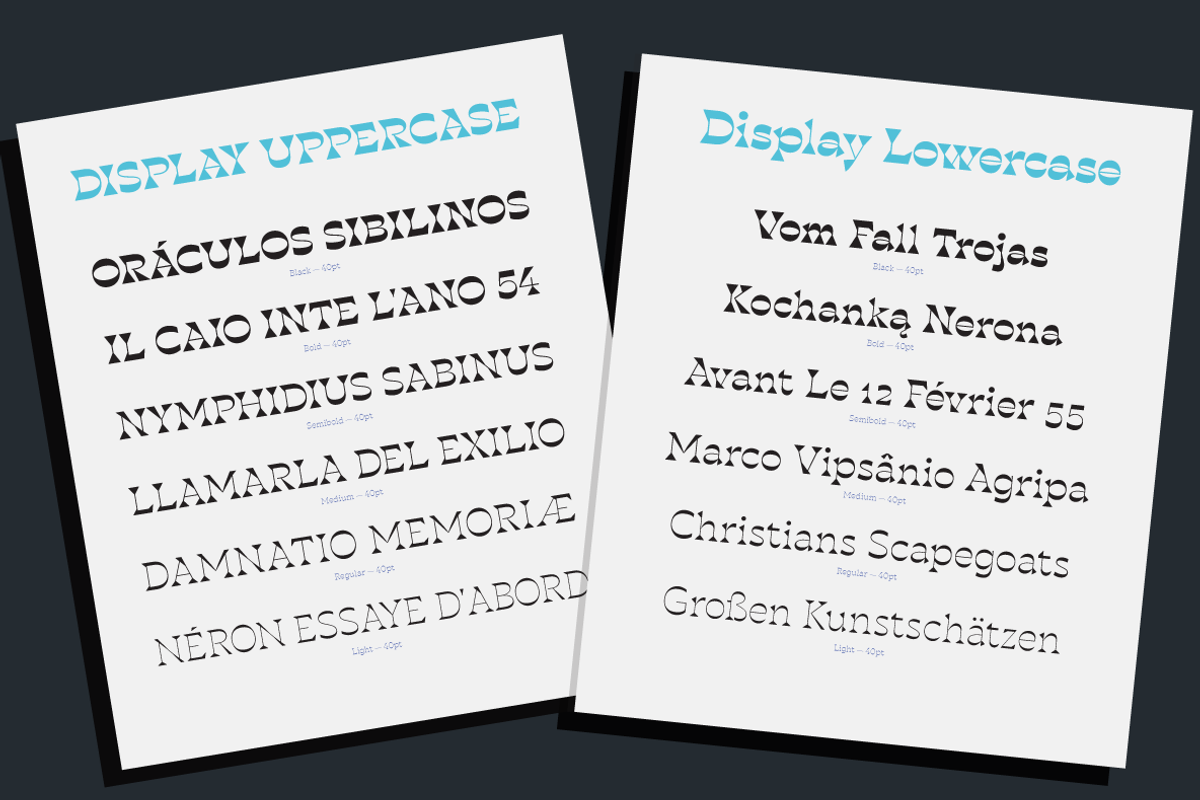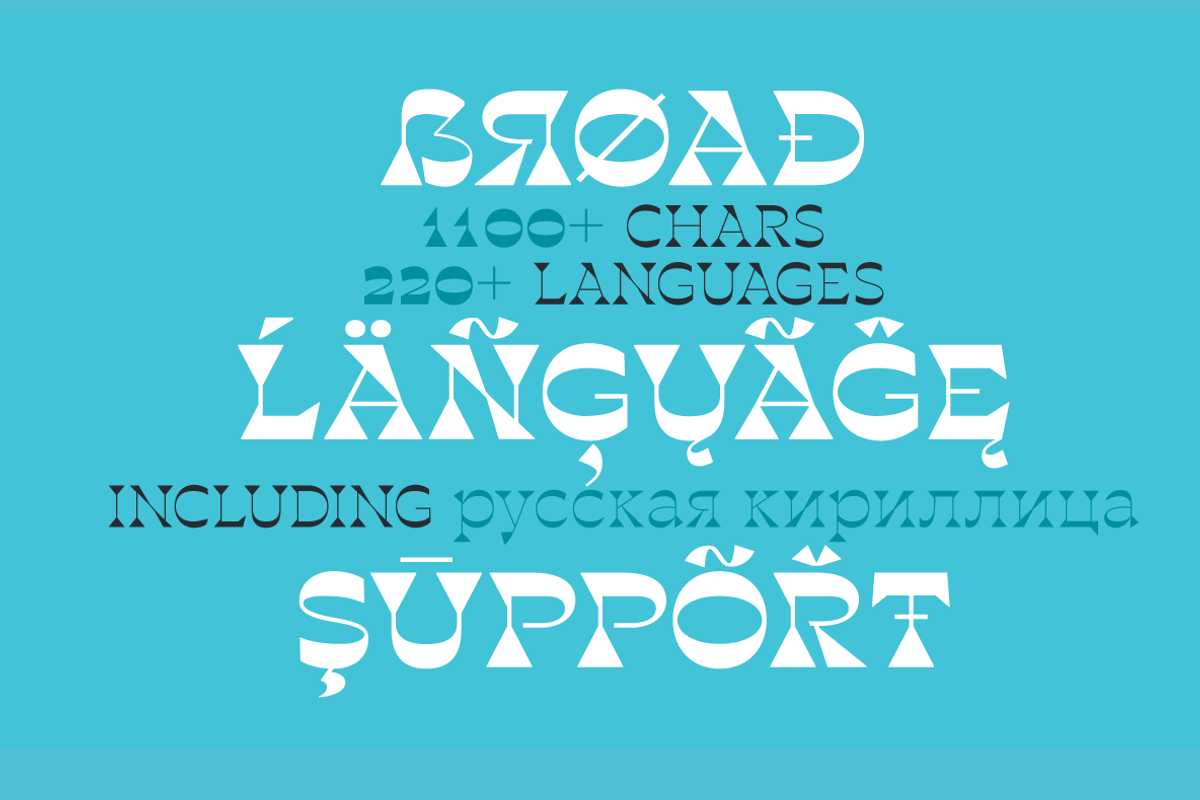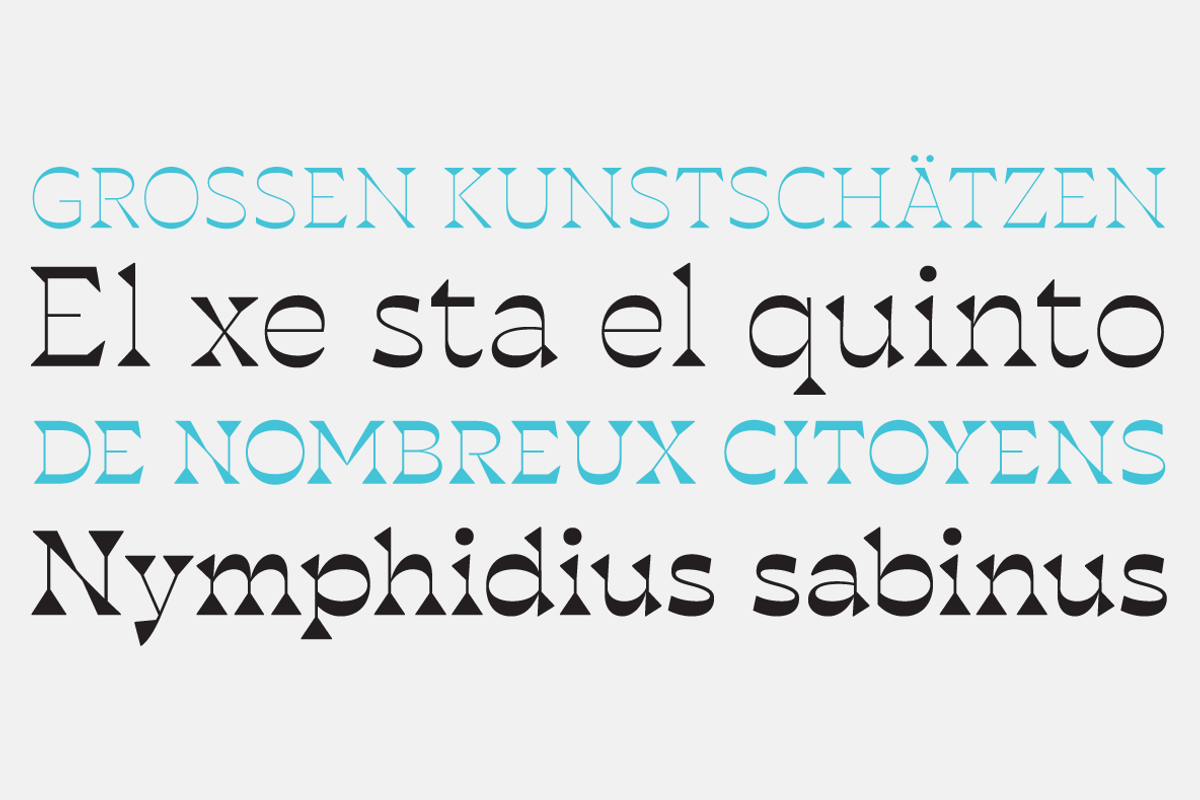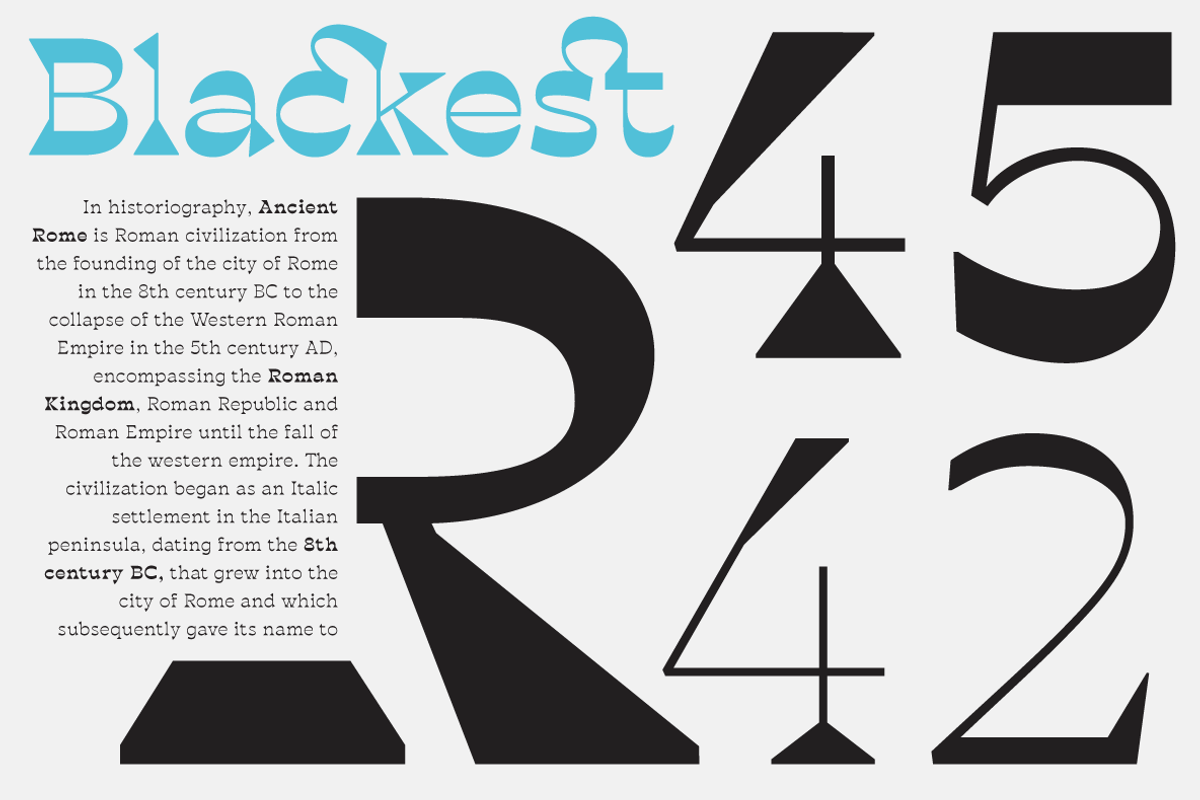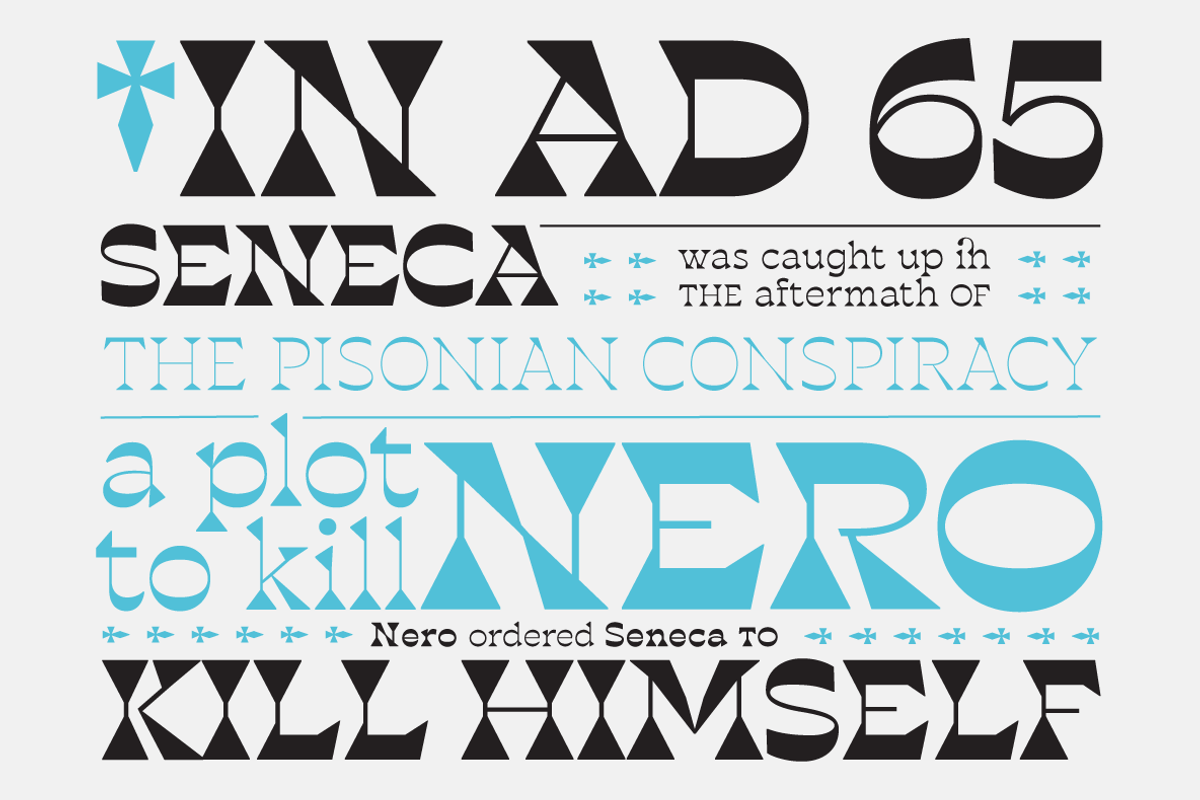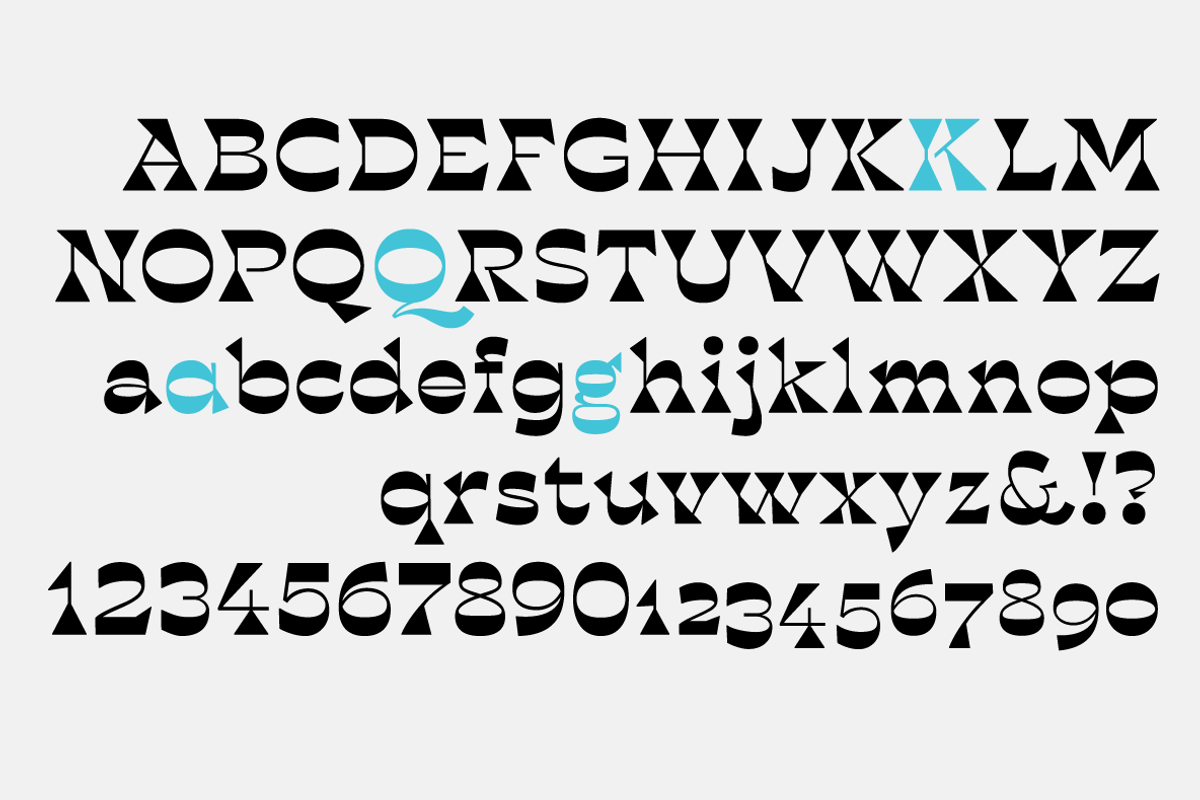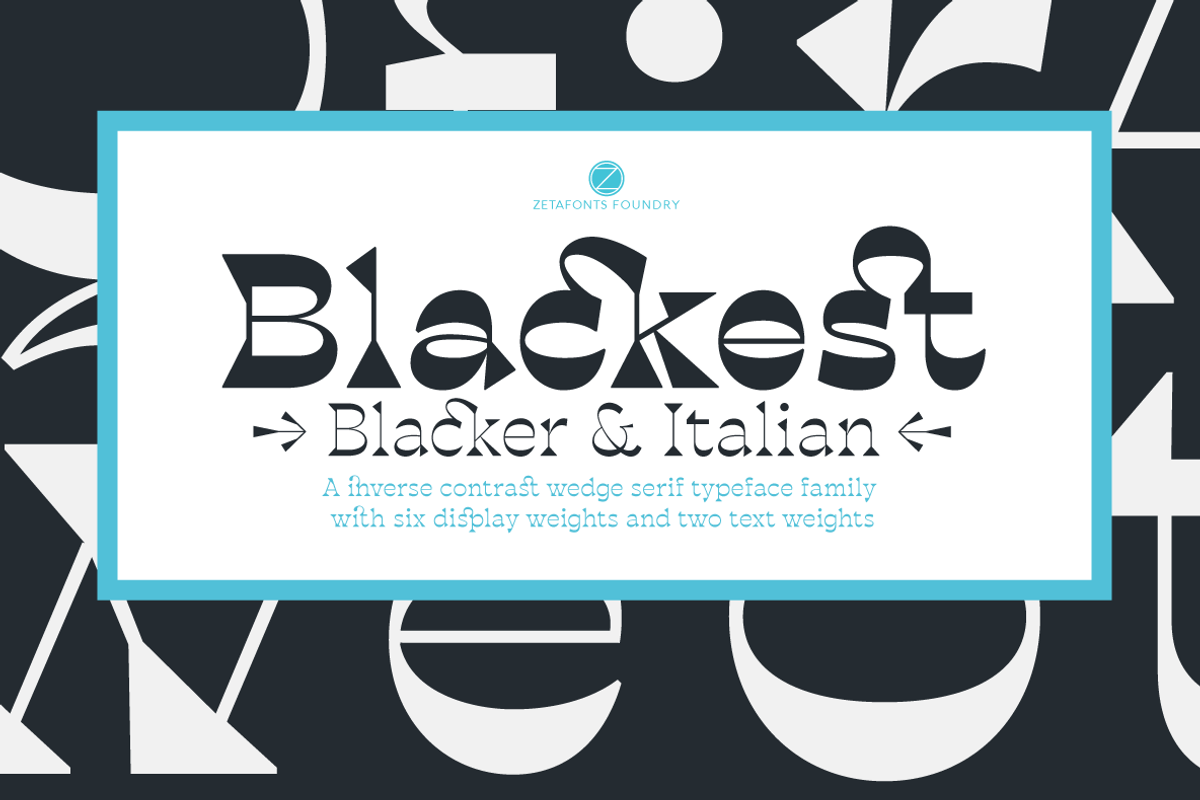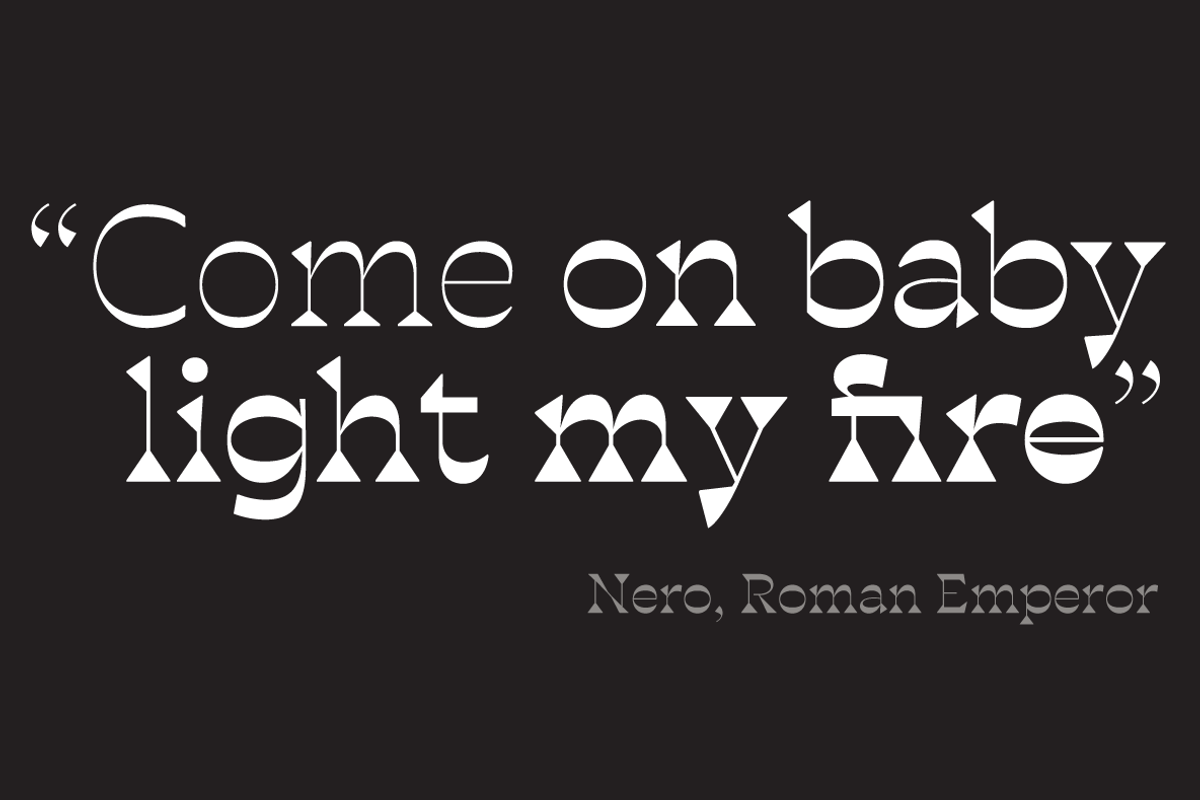
Blackest is an inverse contrast wedge serif typeface family, designed by Francesco Canovaro and Andrea Tartarelli as a development of the Blacker typeface designed by Cosimo Lorenzo Pancini. The classical skeleton and sharp edges of the original have been kept while bringing the contrast of the typeface in the realm of the so called “italian” or reverse-contrast typefaces. The result is a typeface family that manages to be quirky but classical, and playful without losing elegance. With its exuberance and six weights of eye-catching proportions, Blackest is perfect for display use: editorial & magazine design, poster design and logo development - but to allow its usage as a for typesetting of longer texts a text variant in two weights has been developed, with less contrast, looser spacing, and high readability. Blackest features an extended character set that covers over 220 languages using the Latin alphabet, as well as Russian Cyrillic. Open type features include small caps, positional figures, alternate letter forms, stylistic sets, arrows and extra punctuation and discretionary ligatures.
- Open type features include small caps, positional figures, alternate letter forms, stylistic sets, arrows and extra punctuation and discreti